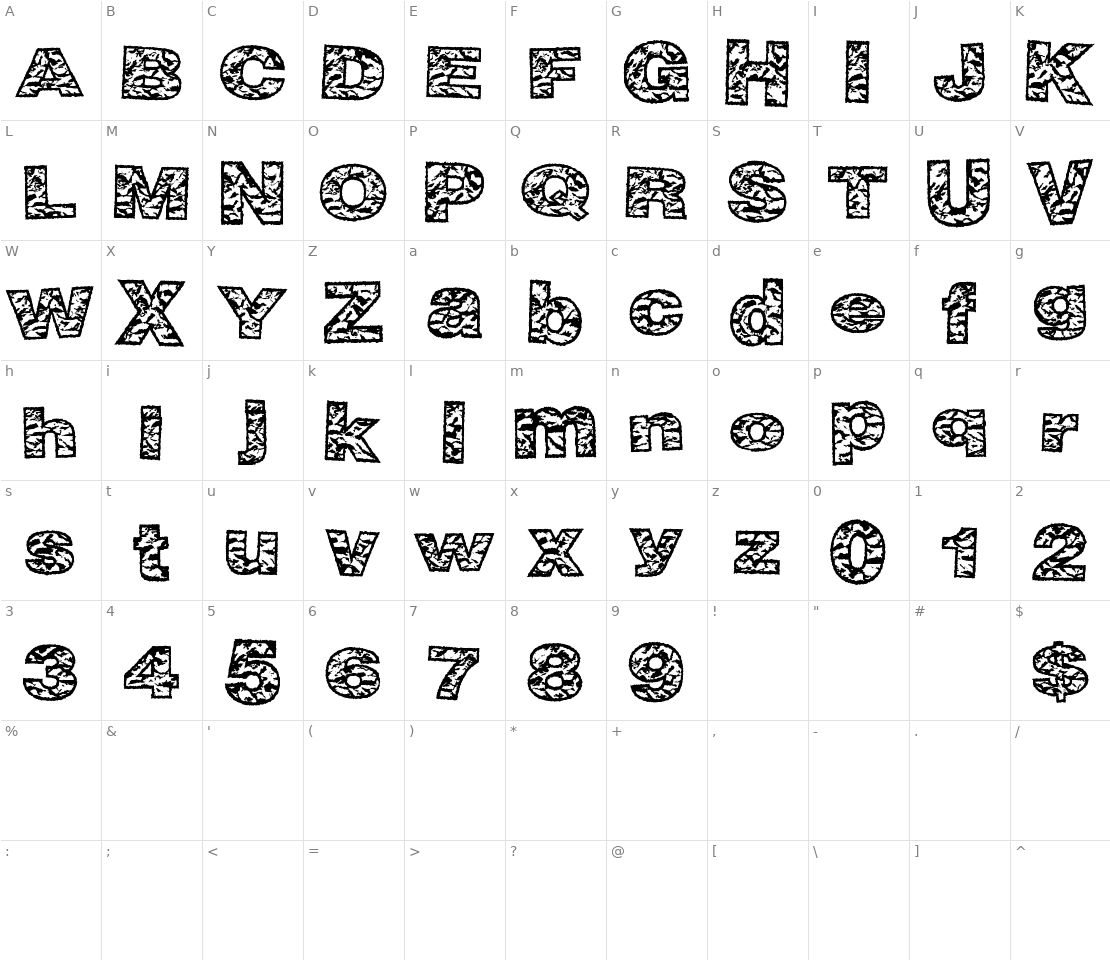
Big Crump
Big Crump is a bold, cracked display face from Xerographer Fonts with heavy letterforms that look like they've been left out in the elements too long. Deep fractures run through each character, giving the type a weathered, broken-concrete texture that feels raw and physical. Built for headlines and posters where you want something that looks like it's falling apart on purpose.